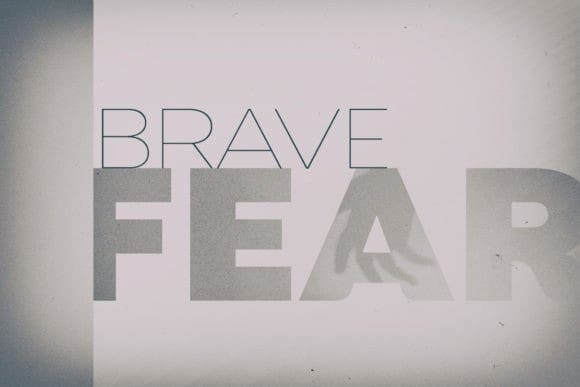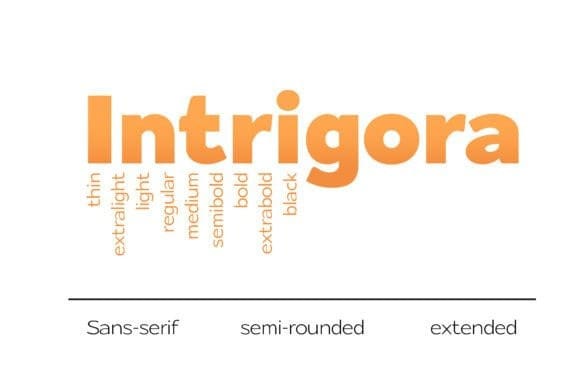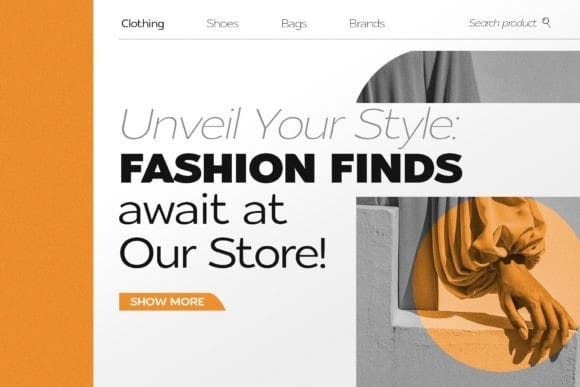
Intrigora Font
Intrigora Font – represents the modernity of typography, combining a sleek modern design with the comforting warmth of rounded type. Its versatility allows it to move seamlessly between design contexts, effortlessly enhancing branding and commanding attention in headlines.
With its generous lettering, Intrigora empowers designers to craft compositions that captivate and inspire. Each character is meticulously crafted to maintain readability while infusing a touch of intrigue, making it ideal for both digital and print applications.